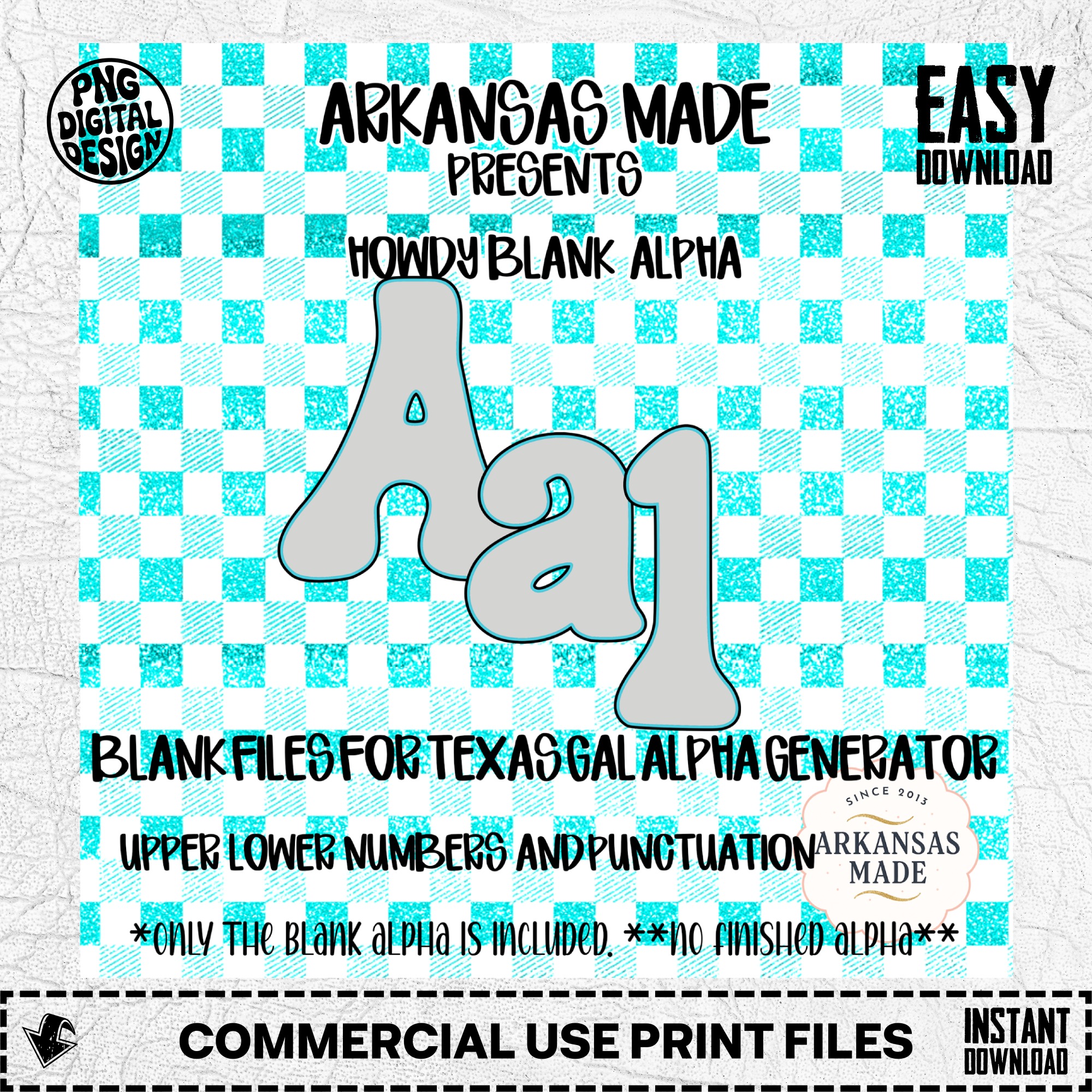
Blank Fillable Alpha Set | Bubble Font Digital Alphabet Letters Numbers Punctuation | DIY Craft Files for Custom Sublimation Designs
Unlock endless creative possibilities with this Blank Fillable Alpha Set, perfect for digital crafters and sublimation artists to personalize designs. These versatile bubble-style digital letters, numbers, and punctuation are ready for your unique touch. Ideal for creating custom t-shirts, mugs, decals, or personalized gifts for birthdays, holidays, and special events. Empower your small business or DIY projects with easy-to-use graphic design files.